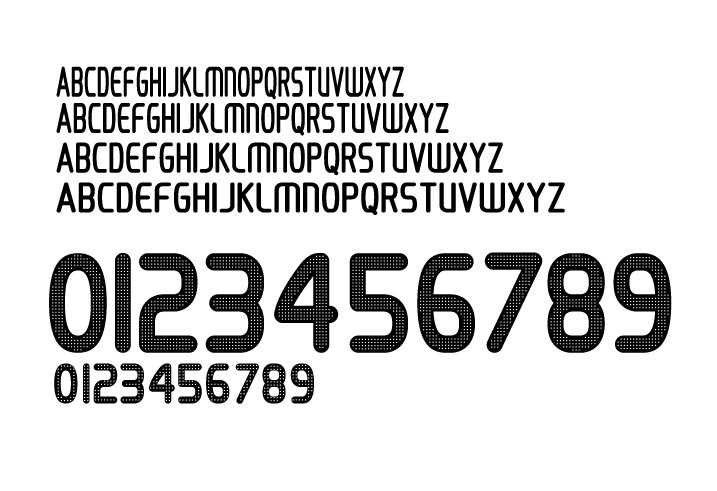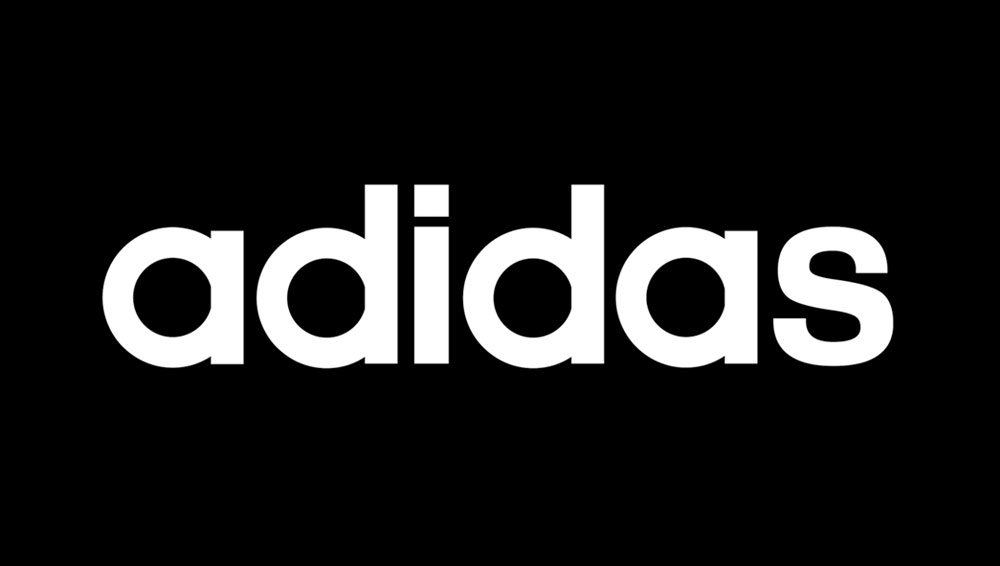
Adidas Font
Adidas Font is the most famous custom typeface that belongs to a Sans Serif typeface family. Basically, Adidas is a sports brand that produces high-quality sports things. This brand came into being in 1924 in Herzogenaurach, Germany. The brand produces shoes, shirts, hats, and other sports accessories, it is famous all over the world.
This typeface is inspired by its branding logo name and most of there are many typefaces that are similar to this and still used to make Adidas logo “ITC Avant Garde Gothic Lt Bold font” is one of them. This typeface has Bold attractive characters includes Uppercase Letters, Lowercase Letters, Numbers and numerals, and common symbols as well. It has OTF features, everyone knows that the OTF features fonts are very common for any design. Usage The characters in this font are very professional as you can see.
This font is very popular after being used in famous brands “Adidas and now it well-known typeface all over the world. Its bold and clear characters are the star in people’s eyes€î The font tasteful typeface can be one of the crucial top-notch options you can have ever made because of the reality that many designers are already using it for their designs and logos. This typeface is classy bold with a luxury touch font for powerful usage. The font family is good for Screen usage or Graphical projects whatever you want to make such as Logo designs, Illustration Designs, Wallpaper Designs, Promotional Logos, Branding Product Packagings, T-shirt designs, Posters, Brochures, Magazines, Wedding and Invitation cards, and more.
FAQs! Which Font is used in Adidas? The font that was used in the Adidas logo is ITC Avant Garde that is a special unique typeface and very popular. But in this age, the designers are crying for its alternative font.
Is Adidas a modern Font? This is used in a famous brand and many brands also used this typeface therefore the users ask for its alternative font for their brands and logos.